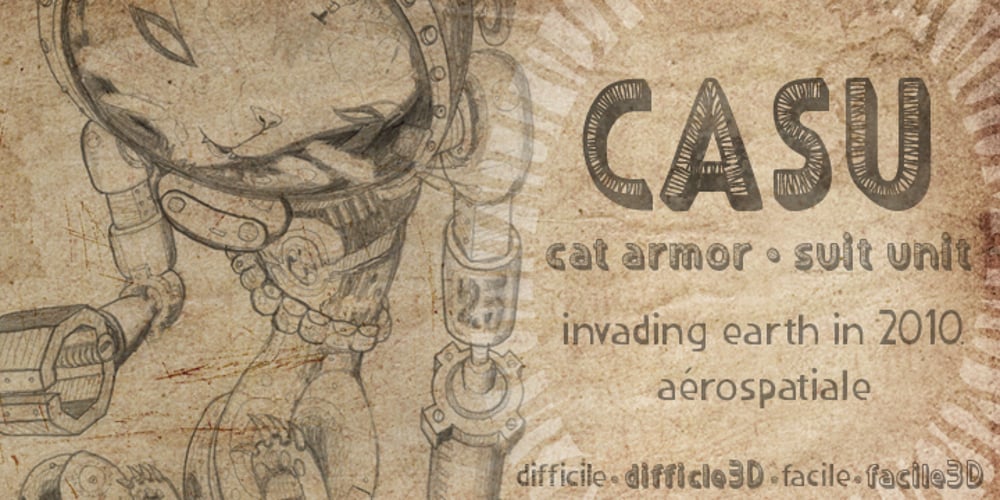
CASU Aérospatiale
CASU Aérospatiale font
CASU Aérospatiale Font Family was designed by Luke William Turvey and published by Okaycat. CASU Aérospatiale contains 4 styles and family package options. CASU aérospatiale is an extruded 3-D font supported by equivalent “flat” styles. CASU aérospatiale is relaxed in character yet smooth in details. With the full family, you get many options for playing with text: add juxtaposition, depth, and texture to your work! CASU aérospatiale is extended, containing West European diacritics and ligatures, making it suitable for multilingual environments and publications.